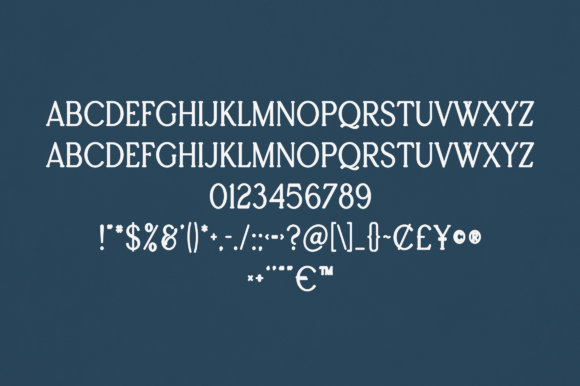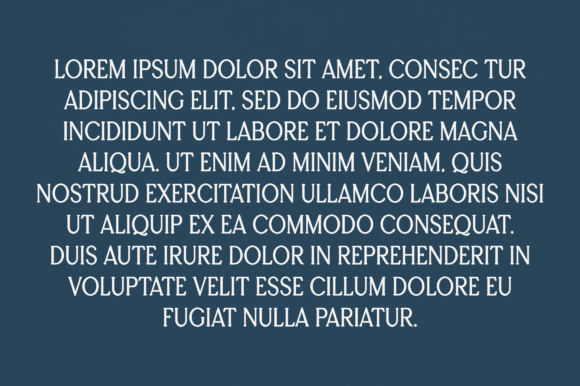
Introducing Daxton Font: Elevate Your Typography with Elegance and Versatility
In the world of design, typography plays a crucial role in conveying messages, expressing creativity, and establishing brand identity. For designers and crafters seeking a font that combines elegance, versatility, and uniqueness, Daxton Font is an exceptional choice. This serif font is meticulously crafted to add a touch of sophistication to any design project, making it perfect for a wide range of applications.
What Makes Daxton Font Stand Out?
Daxton Font is not just another serif font; it’s an elegant and versatile typeface designed to make your typography truly unique. Its distinctive features and classic appeal make it an excellent addition to any design project. Here are some key characteristics that set Daxton Font apart:
- Elegant and Sophisticated: Daxton Font exudes elegance and sophistication, making it ideal for high-end branding, luxury product packaging, and premium editorial content.
- Versatile: Whether you’re working on a logo, headline, or plain text, Daxton Font adapts seamlessly to various design contexts, ensuring your typography always looks stunning.
- Unique: With its distinctive serif design, Daxton Font helps you stand out from the crowd, giving your brand or design project a memorable visual identity.
Daxton Font’s versatility makes it suitable for numerous design applications. Here are some of the many ways you can use Daxton Font to elevate your designs:
- Branding Projects: Establish a strong brand identity with Daxton Font’s elegant and sophisticated look, perfect for logos, business cards, and brand guidelines.
- Home-Ware Designs: Add a touch of luxury to your home-ware designs, such as product labels, packaging, and catalogs, with Daxton Font’s classic appeal.
- Product Packaging: Make your product stand out on store shelves with Daxton Font’s distinctive and eye-catching design, ideal for packaging labels, boxes, and more.
- Magazine Headers: Create stunning magazine headers, titles, and subtitles with Daxton Font, adding a level of sophistication to your editorial content.
- Text Overlay: Use Daxton Font as a stylish text overlay for any background image, ensuring your text is not only readable but also visually appealing.
Why Choose Daxton Font?
With so many fonts available, why should you choose Daxton Font for your design projects? Here are some compelling reasons:
- High-Quality Design: Daxton Font is crafted with attention to detail, ensuring a high-quality design that will elevate your typography.
- Unique Style: Daxton Font’s distinctive style will help you establish a strong visual identity, setting you apart from others in your industry.
Tips for Using Daxton Font Effectively
To get the most out of Daxton Font, here are some tips for using it effectively in your design projects:
- Pair with Complementary Fonts: Combine Daxton Font with complementary fonts to create a harmonious and visually appealing typography.
- Experiment with Font Sizes: Play with different font sizes to create visual hierarchy and emphasize important information.
- Use Color Wisely: Select colors that complement Daxton Font’s elegant design, ensuring your typography is both readable and aesthetically pleasing.
In conclusion, Daxton Font is an exceptional choice for designers and crafters seeking a unique, elegant, and versatile serif font. Its distinctive features, classic appeal, and high-quality design make it perfect for a wide range of design projects, from branding and packaging to editorial content and text overlays. By incorporating Daxton Font into your design workflow, you’ll be able to elevate your typography and create stunning visual identities that leave a lasting impression.